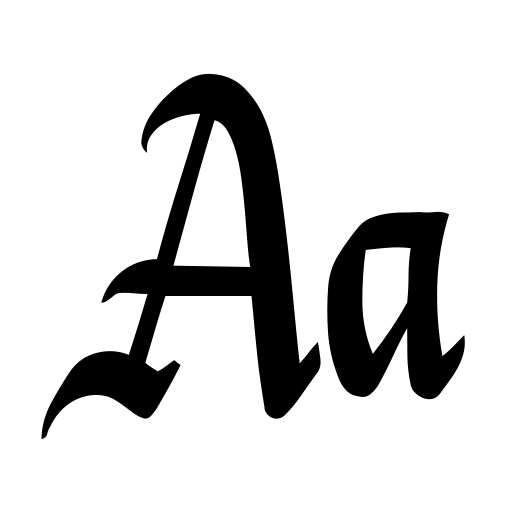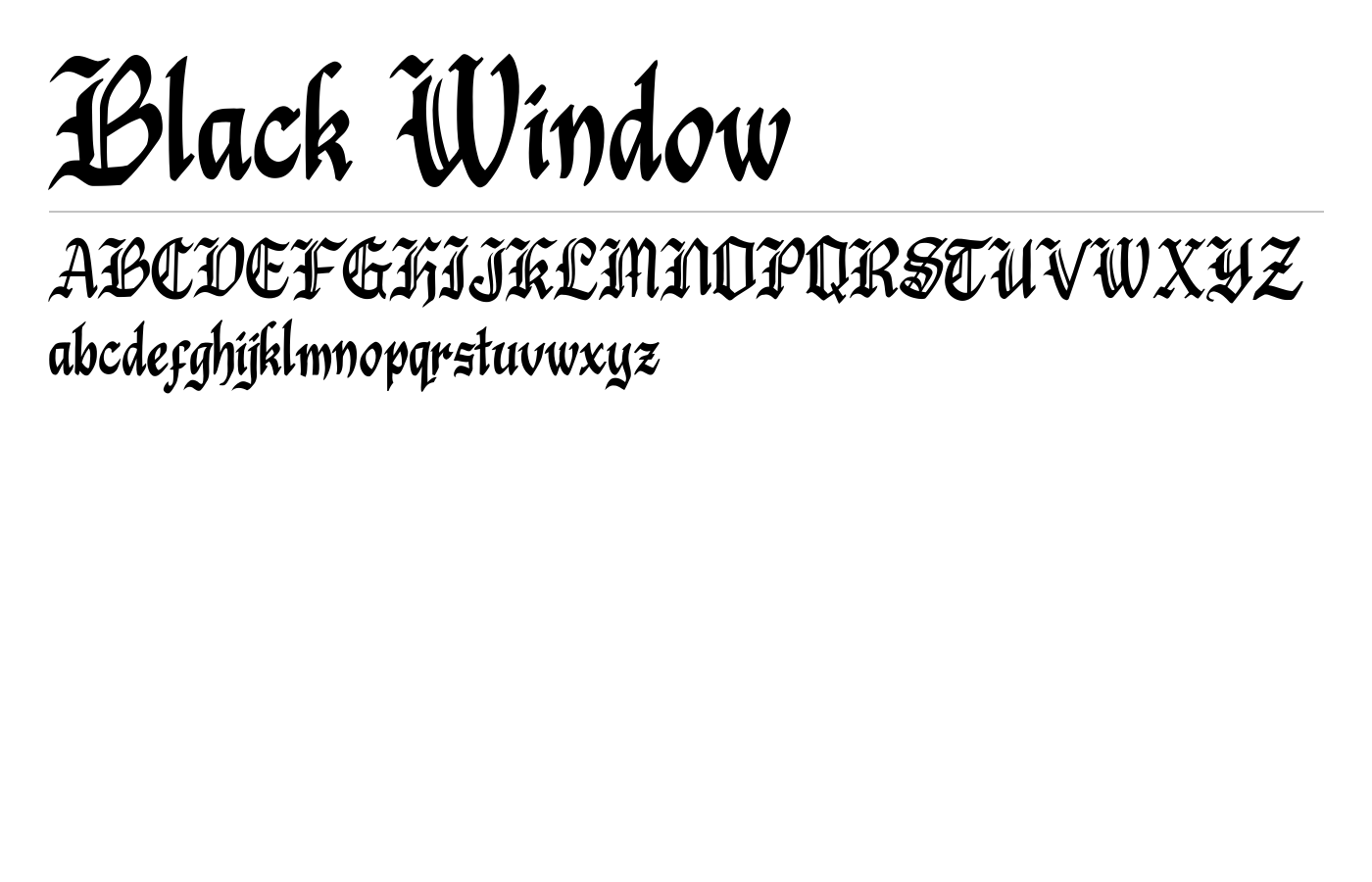
Black Window is a bold blackletter serif font that exudes a strong, traditional gothic character with sharp, angular strokes and dramatic contrast between thick and thin lines. Its design evokes a historic, medieval feel, making it ideal for vintage-inspired branding, headlines, posters, and editorial projects that seek to convey authority and old-world elegance. This font works best in large display settings where its intricate, calligraphic style can truly stand out and captivate attention.
Black Window Font
About Black Window Font